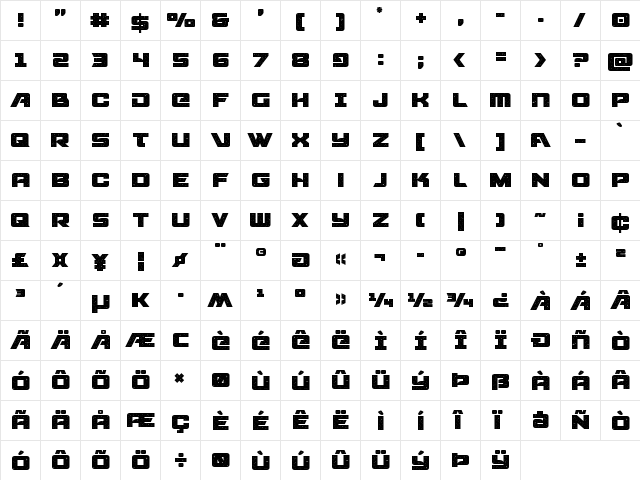
Starcruiser Regular
Design Context for Starcruiser Typeface
Starcruiser is a composed and adaptable typeface that performs quietly and consistently across a wide range of design contexts.
Pro Tip: Use Starcruiser in both headline and body roles to test its range before committing to a single application.